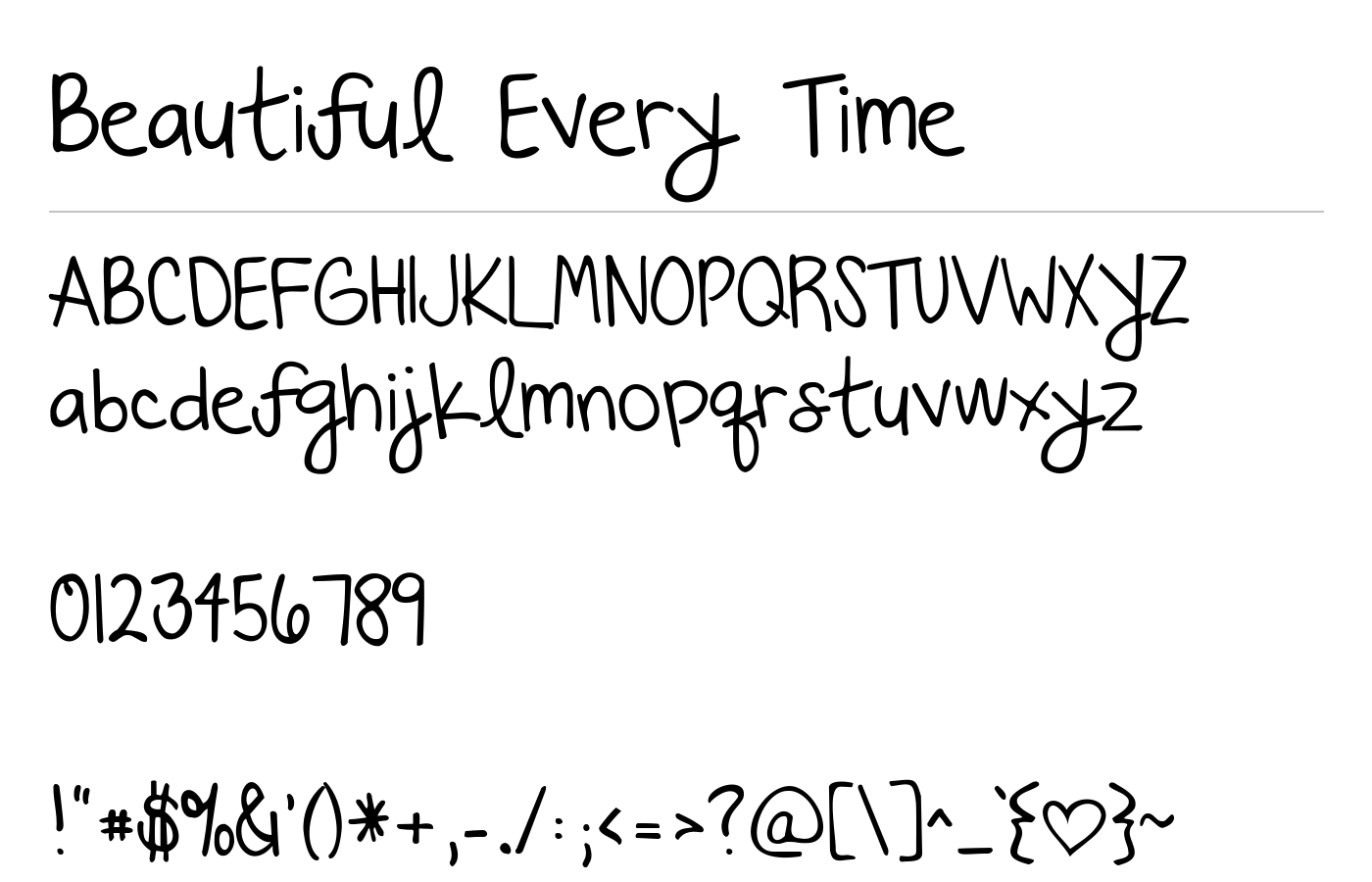
Beautiful Every Time is a casual, handwritten sans serif font that feels friendly and approachable. Its thin strokes and uneven, playful letterforms give it a personal, informal charm, perfect for projects that want to convey warmth and creativity. This font works well for invitations, greeting cards, children’s books, and casual branding where a relaxed and genuine tone is desired.
Beautiful Every Time Font
About Beautiful Every Time Font
| Designer | Kimberly Geswein |